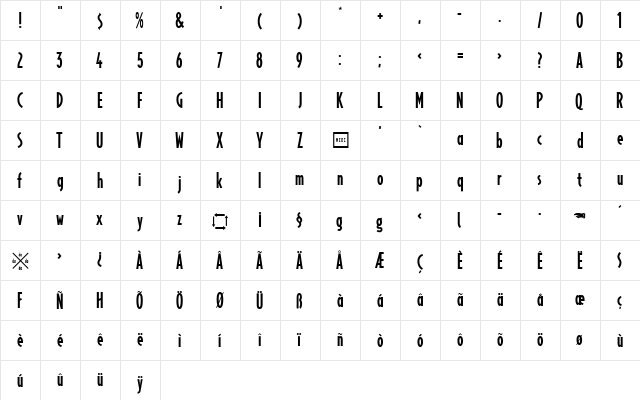
MerzRegular Normal
Design Context for MerzRegular Typeface
MerzRegular offers clean, dependable letterforms without strong stylistic allegiance, making it a practical choice for designers who need flexibility.